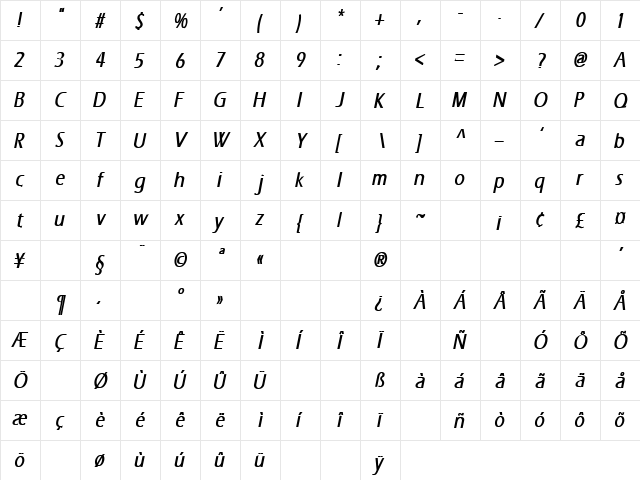
Presence 16 Bold Italic
Design Context for Presence 16 Typeface
Presence 16 is a composed and adaptable typeface that performs quietly and consistently across a wide range of design contexts. Its italic angle brings a sense of urgency and motion to the letterforms. The heavy weight commands attention and anchors typographic hierarchies.
Pro Tip: Try Presence 16 for annotation and caption copy alongside an upright companion — the contrast in angle creates a dynamic but ordered typographic system.